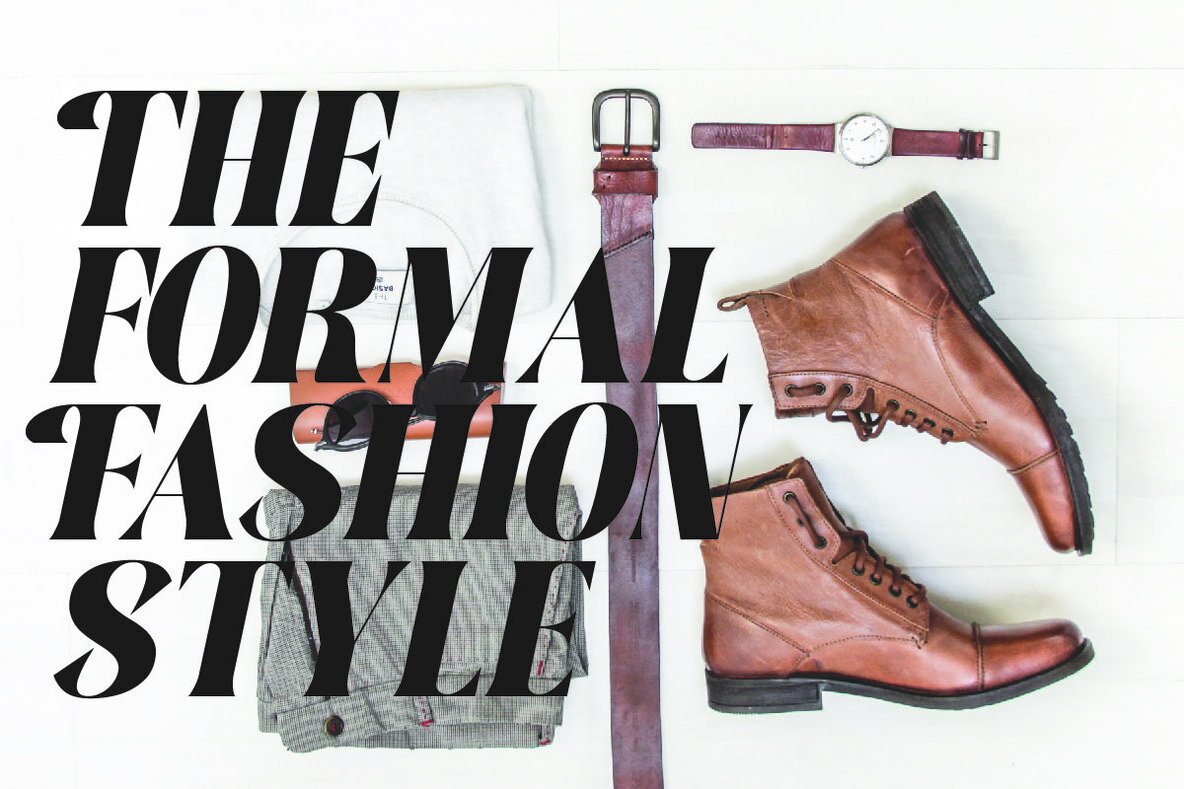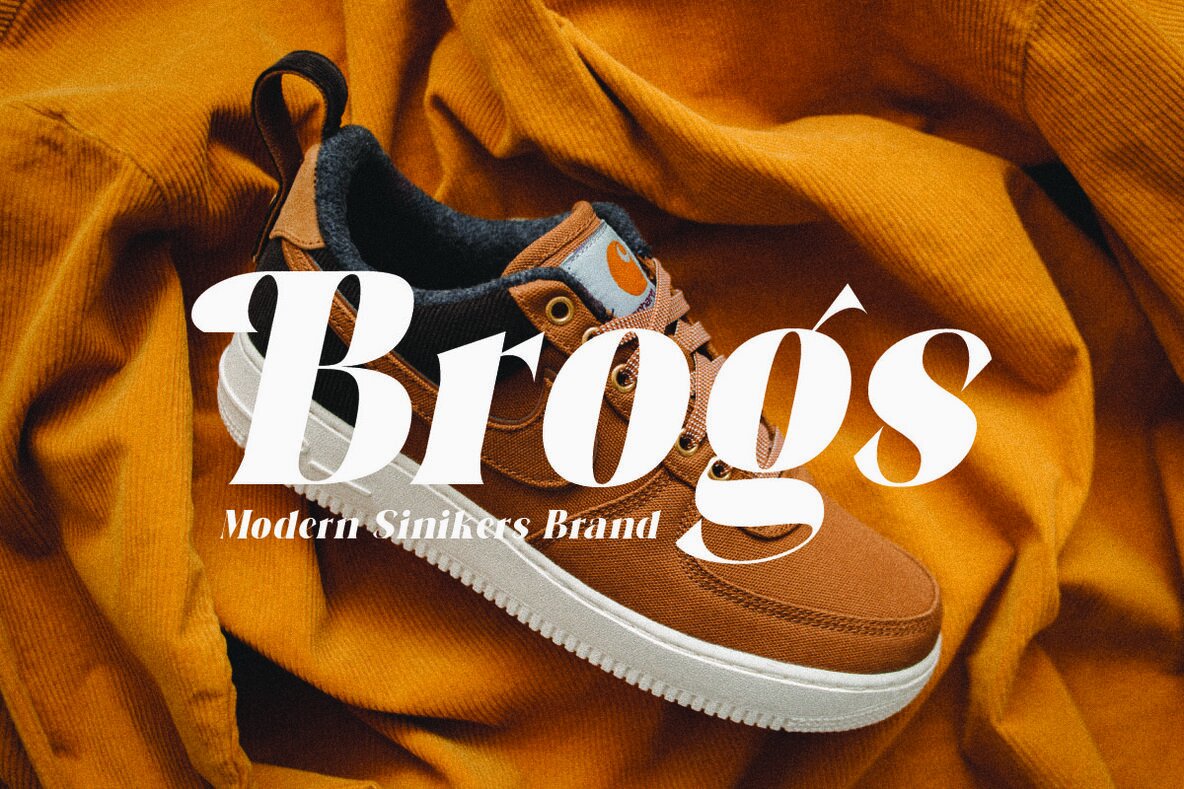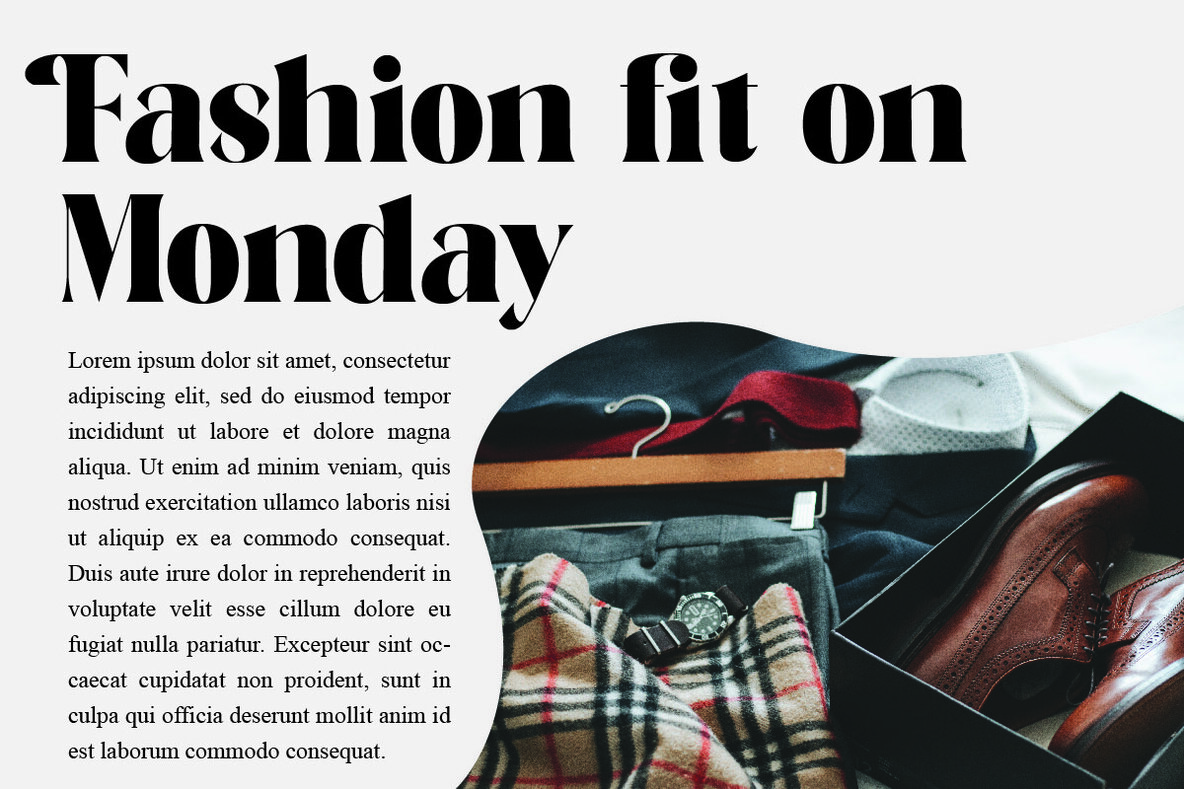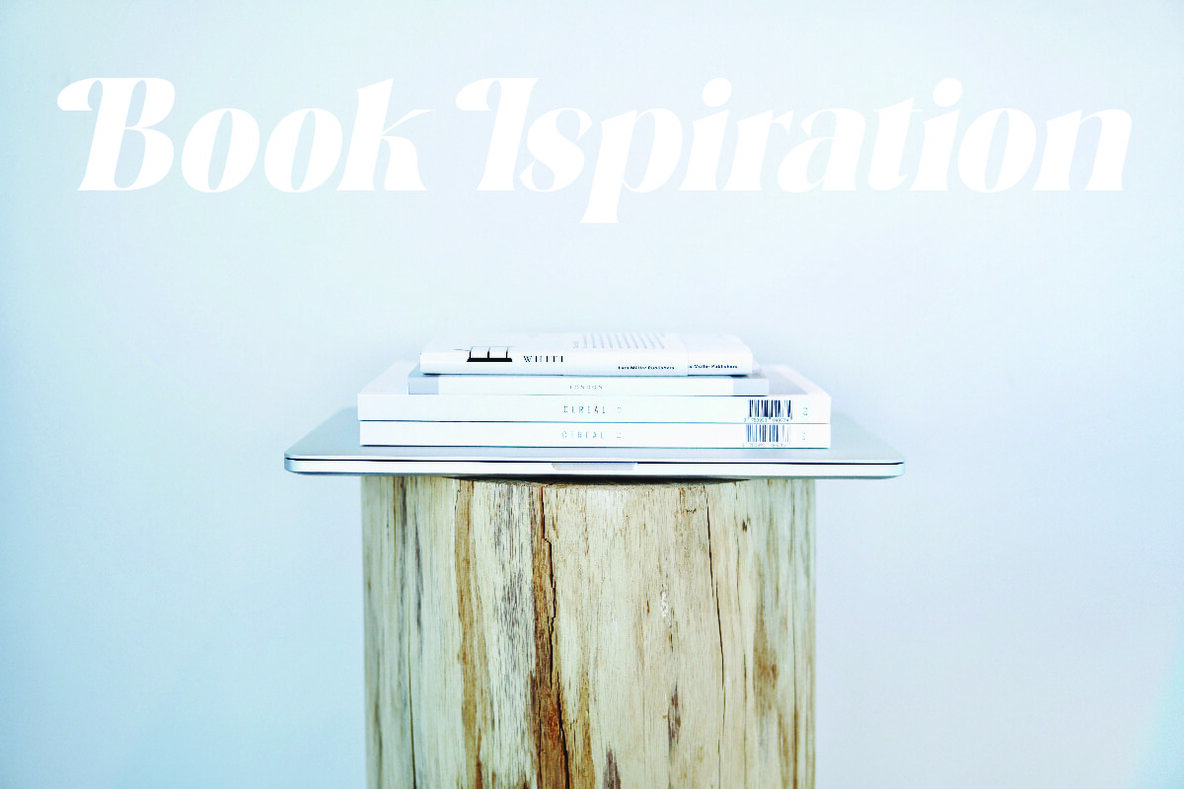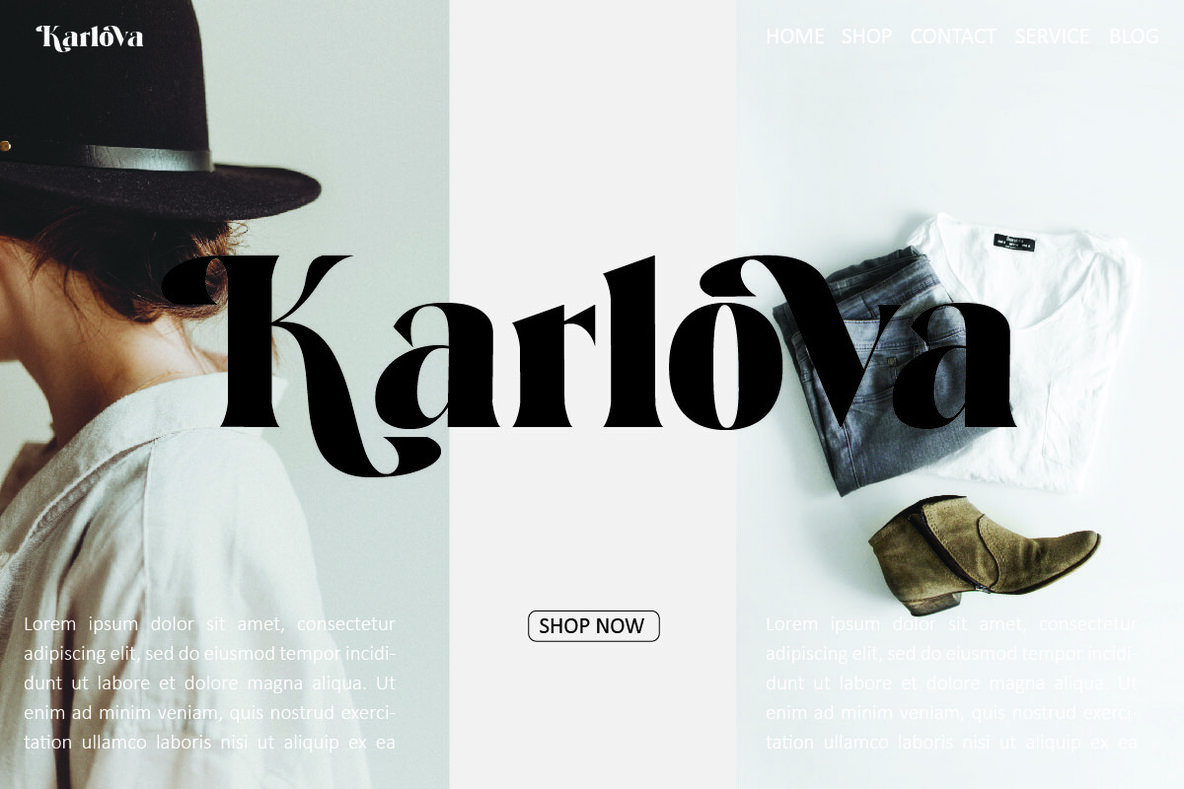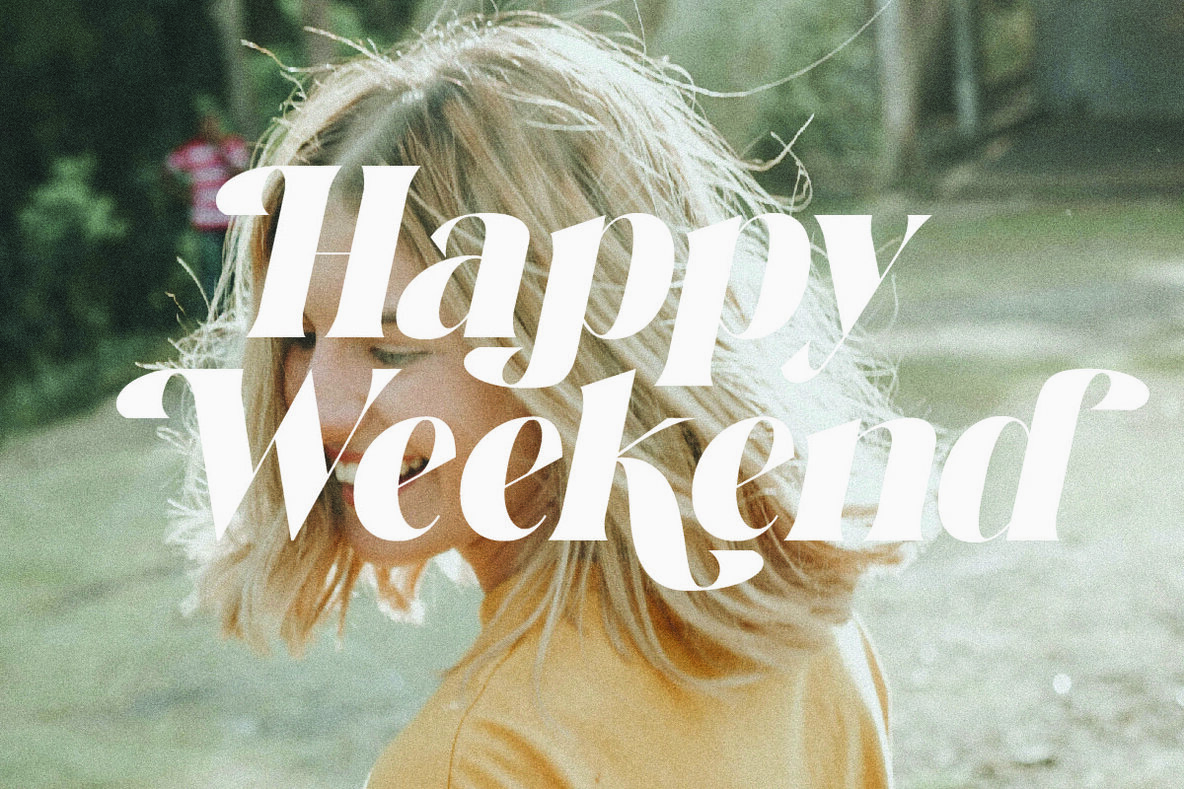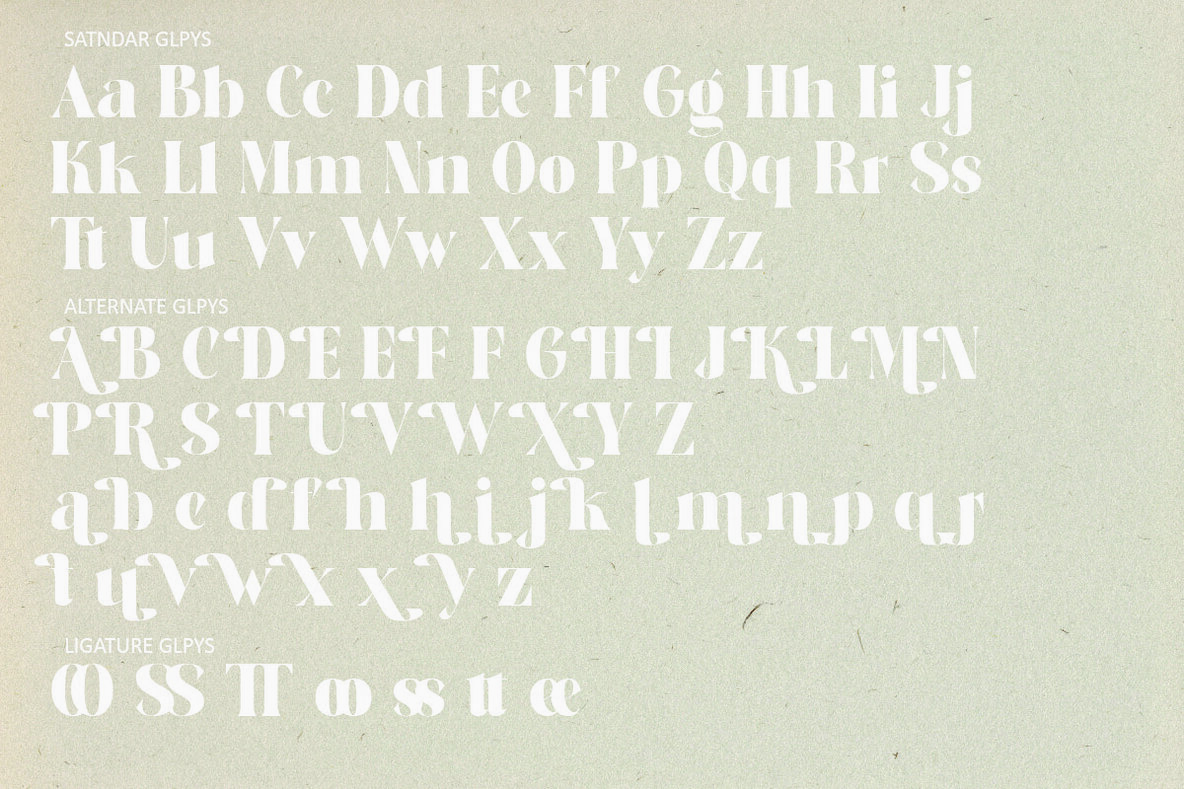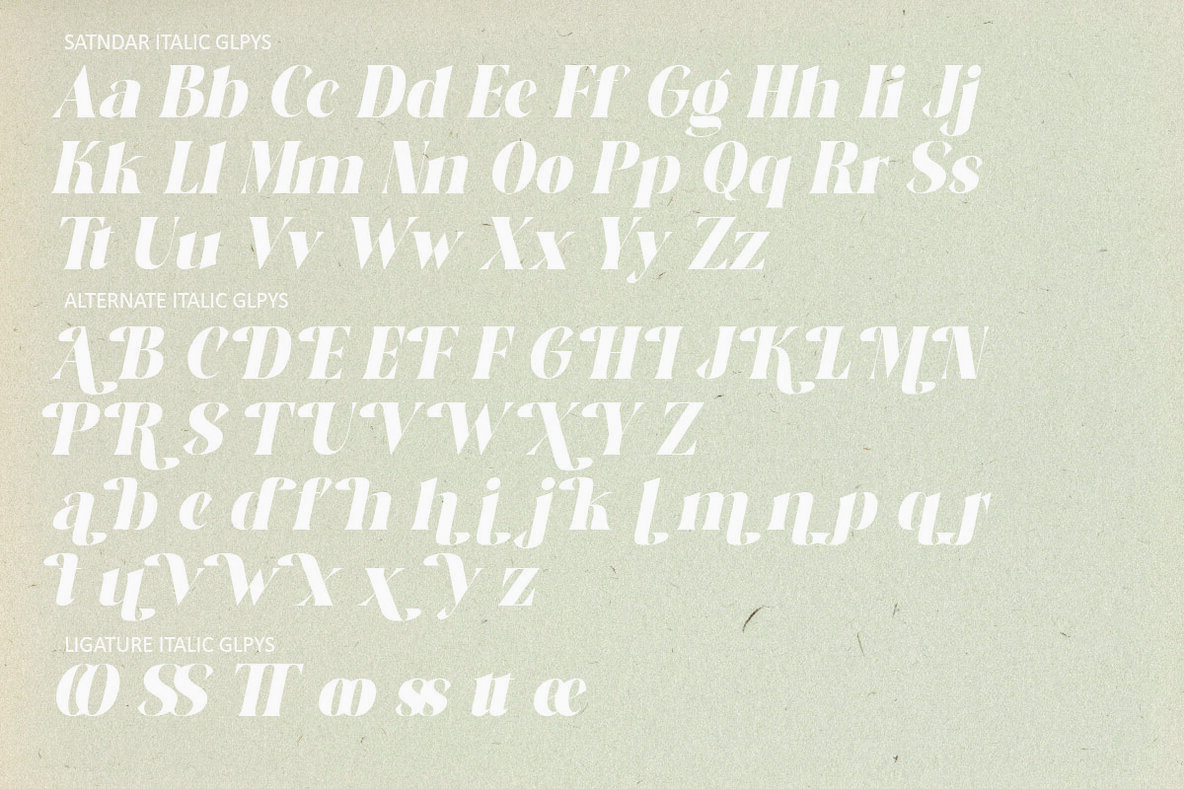
Rabert Conan Font
Rabert Conan is a distinctive bold serif font that stands out with its beautiful alternates, ligatures, and special glyphs. This typeface combines a contemporary flair with classic elegance, making it an ideal choice for a wide range of design projects, from editorials and logos to product packaging. Its versatility ensures stunning results whether used in large headlines or as subtle, sophisticated text overlays on images. With multilingual support and an array of accented characters, Rabert Conan is designed to cater to a global audience. It provides seamless readability across various applications, making it a reliable option for graphic designers and creative directors.Rabert Conan: Modern Bold Serif Typeface